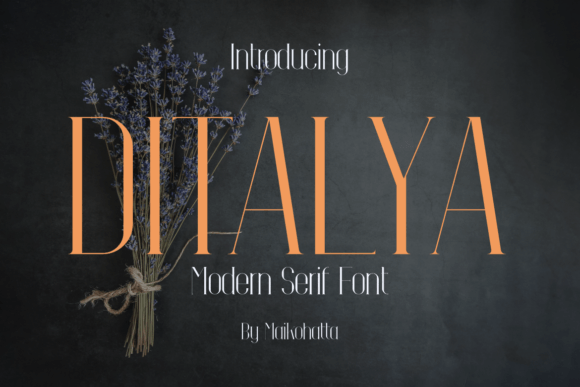
Introducing Ditalya Font, the epitome of grace and precision, meticulously crafted by maikofarazhatta to enthrall the world of typography. This serif font family, renowned for its romantic aura, captivates with its elegant curves and sharp edges, creating a visual symphony that dances across your designs.
Ditalya Font is not merely a collection of letters; it is an orchestra of characters, each note carefully tuned to harmonize with the others. Its balanced proportions and impeccable alignment evoke a sense of order and sophistication, while the subtle nuances of each glyph add a touch of intrigue and individuality.
Whether you're weaving tales of love and longing or crafting promotional materials that demand attention, Ditalya Font is your muse. Its versatility extends to a myriad of contexts, from print design and magazine layouts to eye-catching social media graphics and captivating presentations.
With Ditalya Font, your words will leap off the page, commanding attention and captivating hearts. Its elegance will elevate your designs, imbuing them with a timeless charm that transcends trends.
So, let your creativity soar with Ditalya Font, the font that speaks volumes without uttering a single word. Embrace its romantic essence and transform your designs into masterpieces that ignite passion and stir emotions.